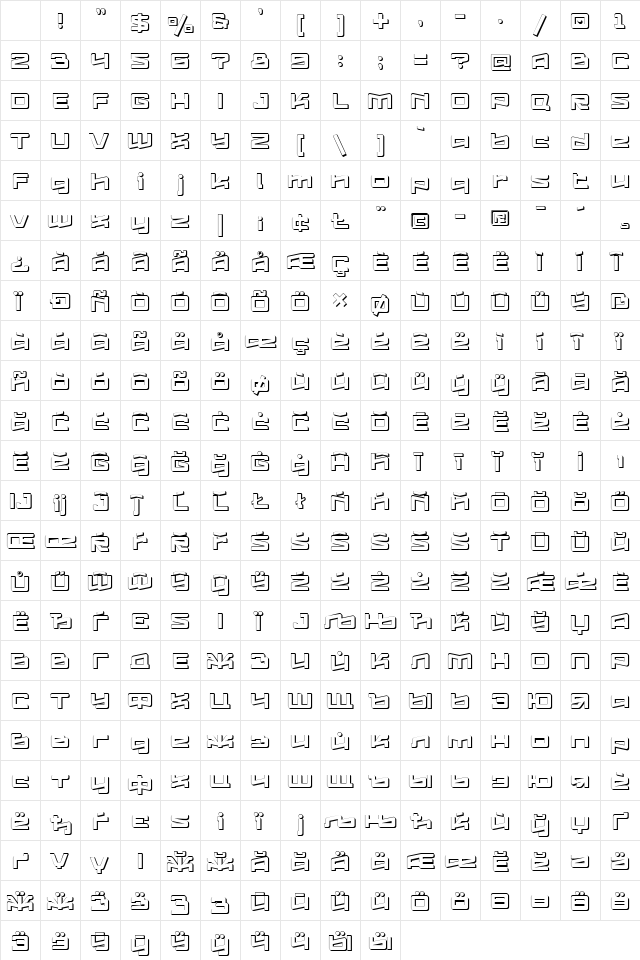
Complete Logofontik 4F Extruded Regular glyph index. Displaying only characters natively supported by Logofontik 4F Extruded Regular font.
Logofontik 4F is a composed and adaptable typeface that performs quietly and consistently across a wide range of design contexts.